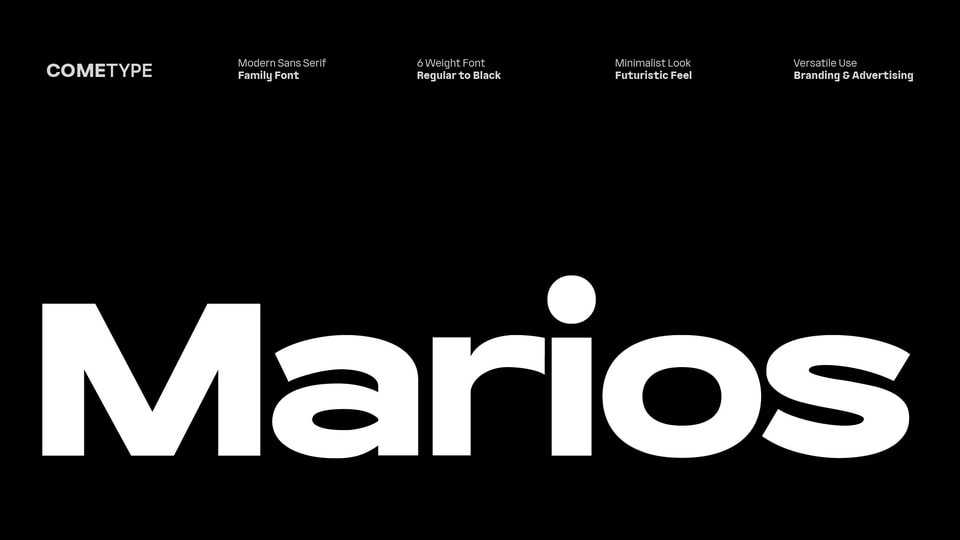
Download Marios font, a modern sans serif typeface with a semi-width design that combines a futuristic and minimalist feel. With 6 available weights, Marios offers flexibility for a variety of design needs.
Designer: ComeType